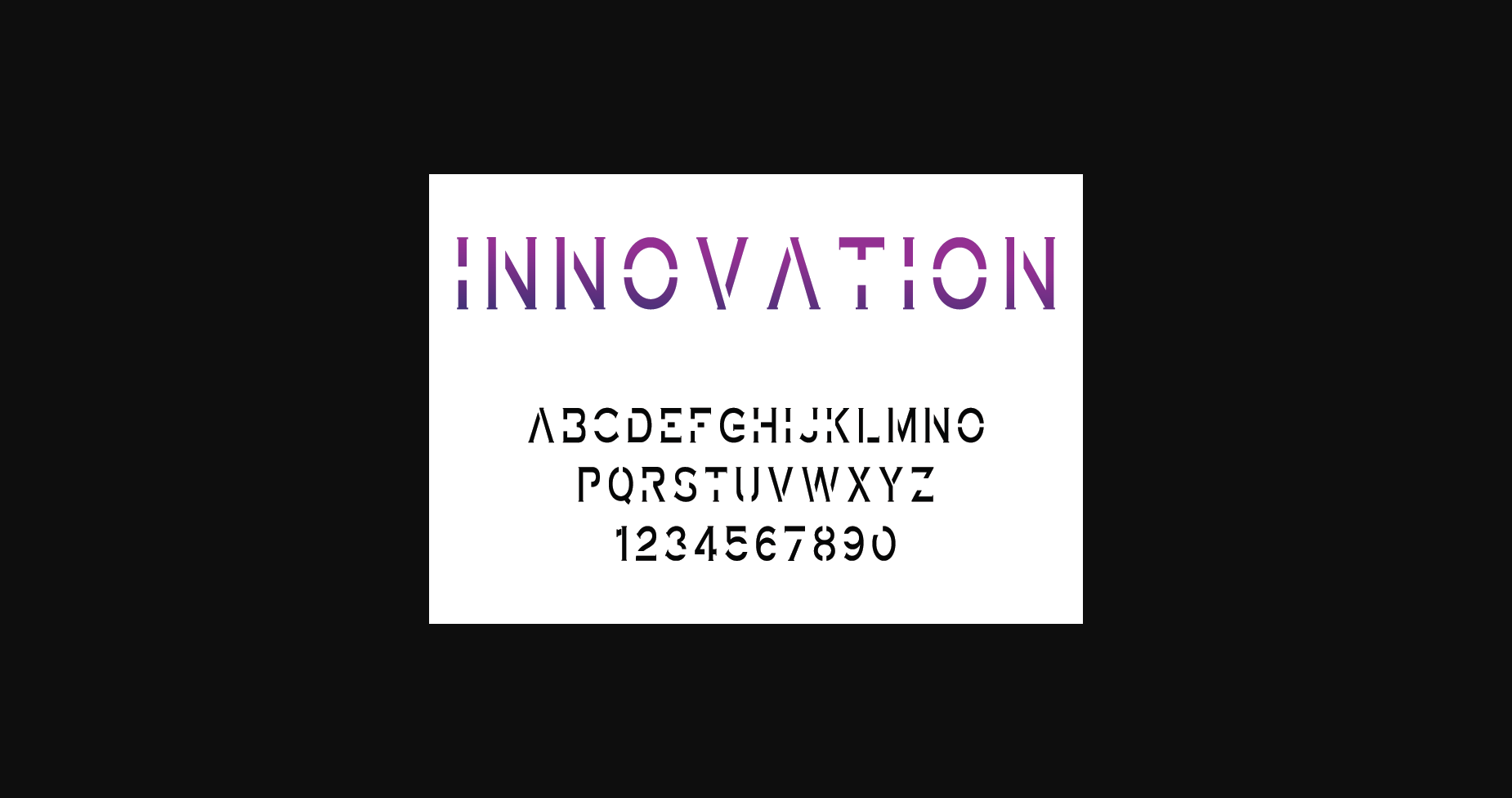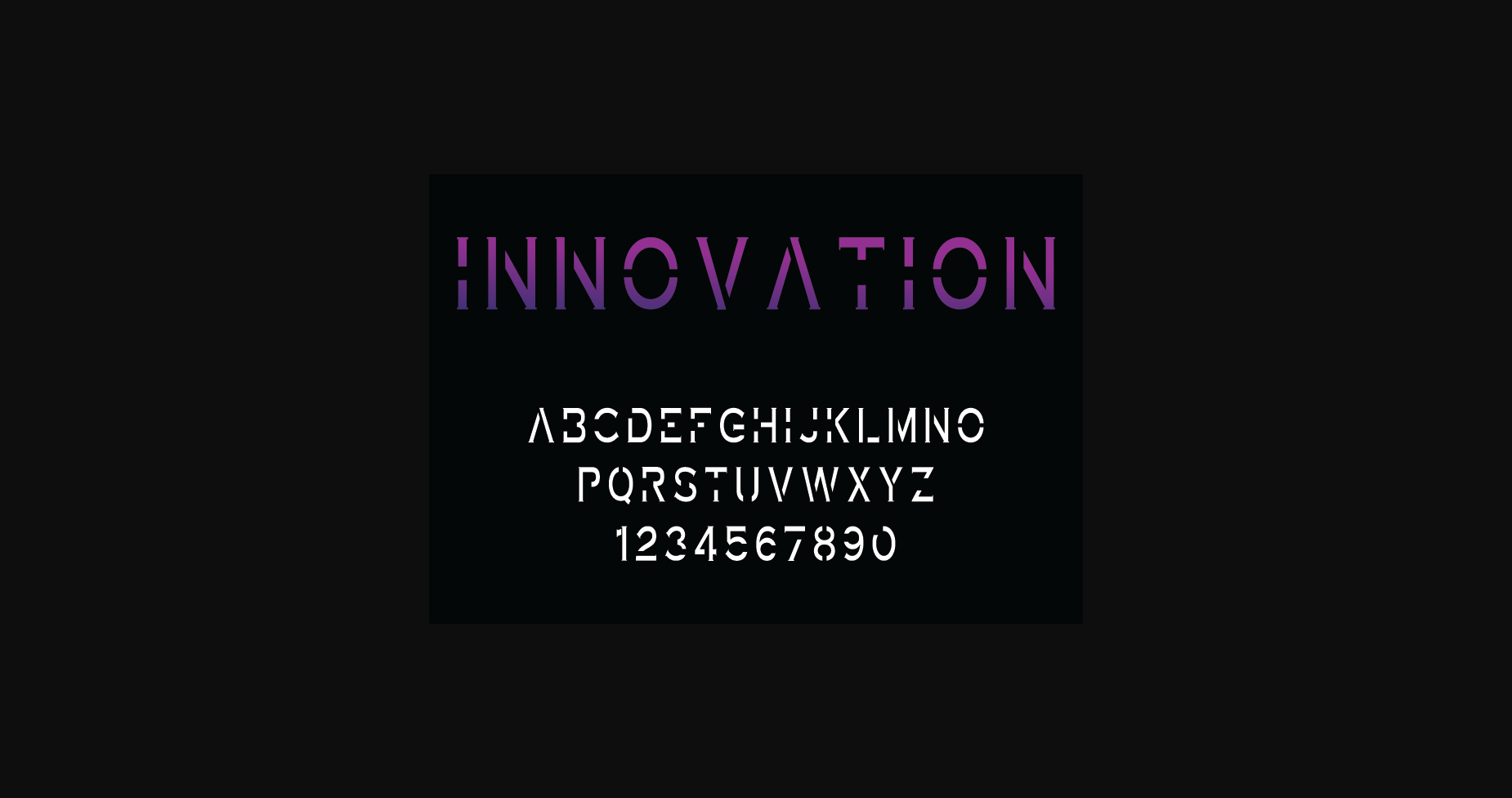
About Innovation Font
Innovation is a cool and modern Sans Serif font. Add it confidently to your creative projects and notice how it makes them stand out from the crowd.